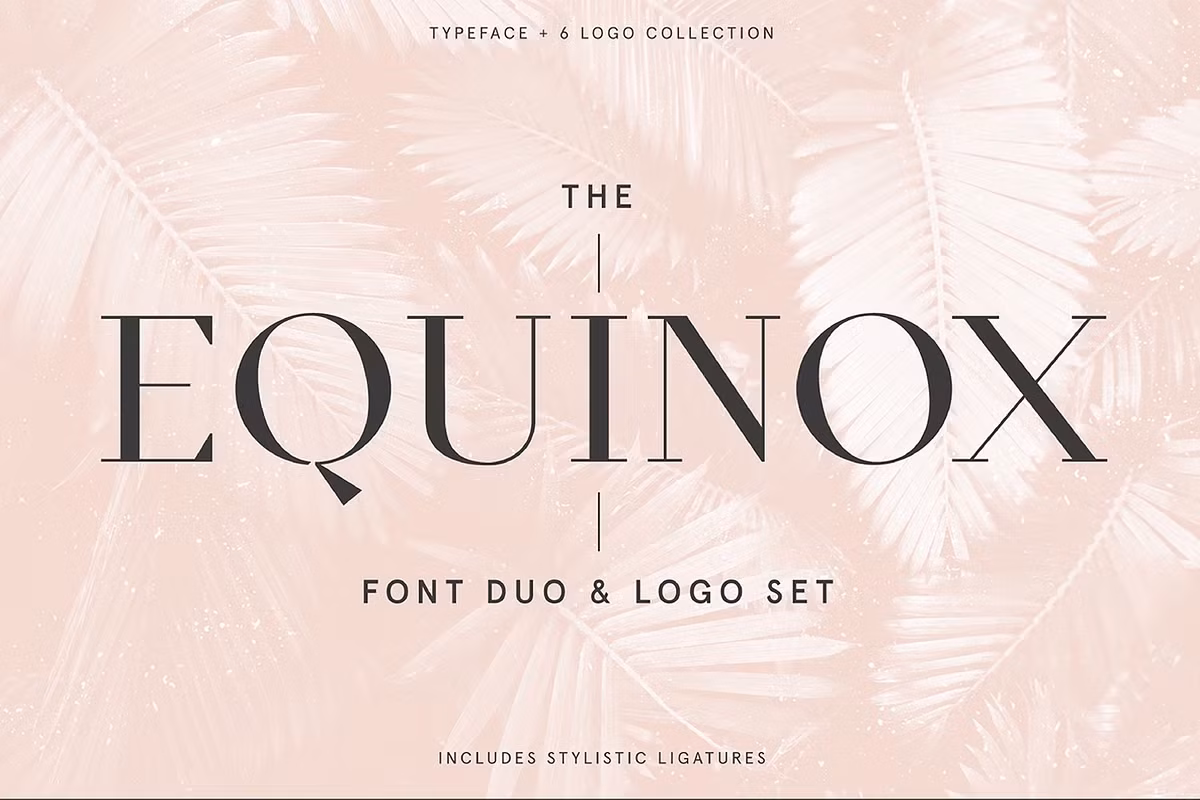
Equinox Stylish Font duo & logo set Free Download
Equinox Stylish Font Duo & Logo Set Free Download is a modern and versatile design bundle featuring a chic serif and a sleek script font, paired with a professionally crafted logo set. Perfect for branding, social media, packaging, and creative projects, this duo brings elegance and harmony to any design.
The unique combination of fonts in Equinox Stylish Font Duo & Logo Set Free Download allows you to mix and match styles effortlessly, giving your designs both contrast and cohesion. From fashion branding to lifestyle blogs, this bundle offers everything you need to build a stylish, on-trend visual identity. Test the fonts and logo elements in your workflow and explore their full potential before securing a commercial license.